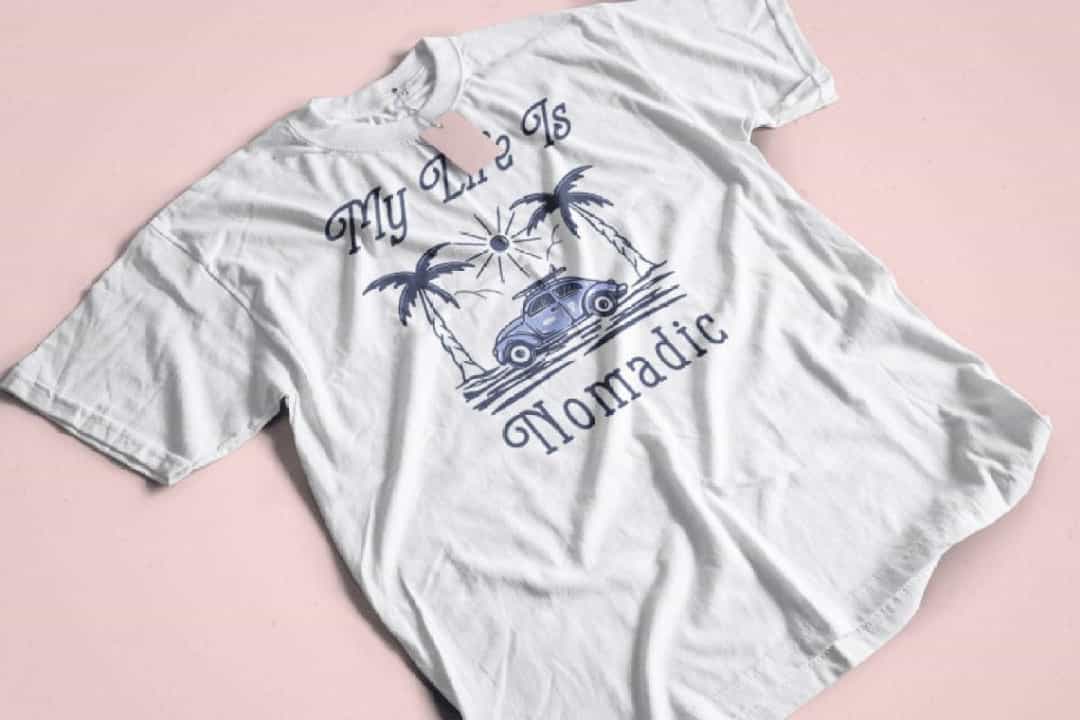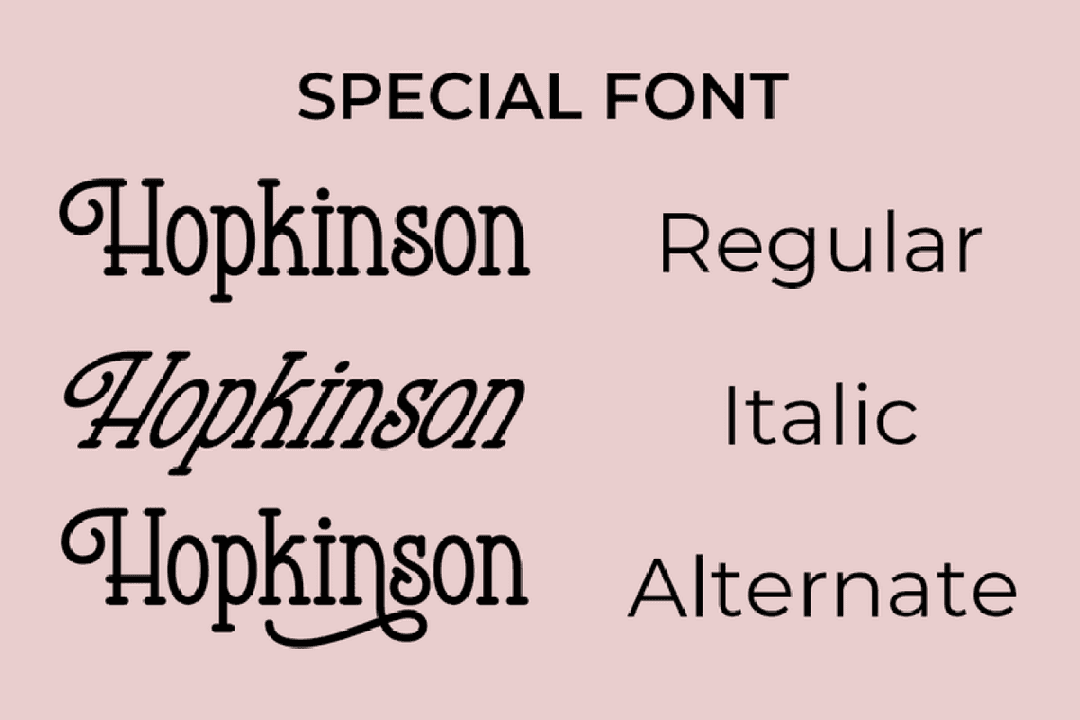
The Hopkinson font is an elegant and contemporary serif typeface featuring friendly curvatures, straight lines and open lines – drawn by hand for a casual and lively appearance. Hopkinson can be used in branding projects, photography sessions and blog posts alike – plus it comes PUA encoded so you have access to all its glyphs and ligatures easily!